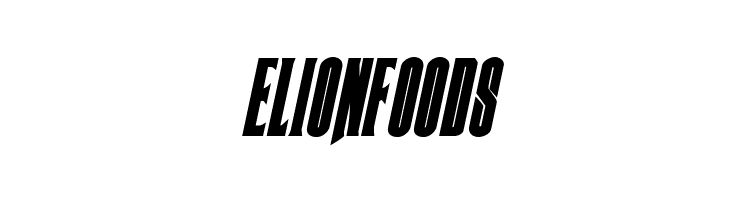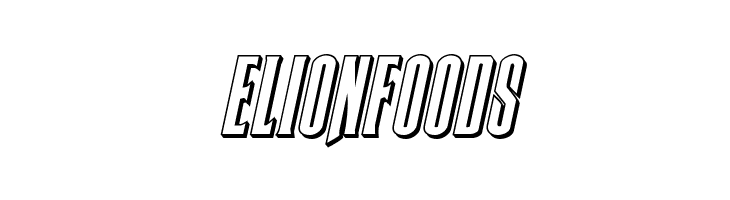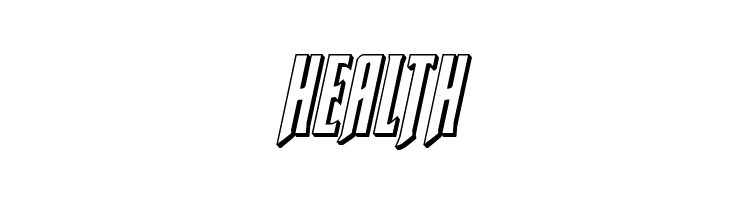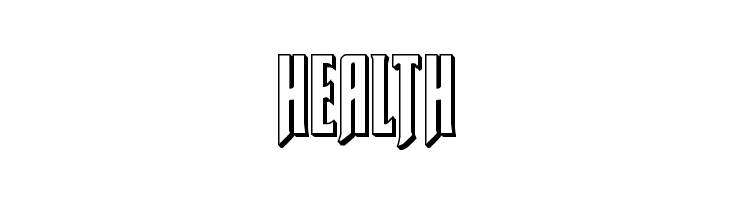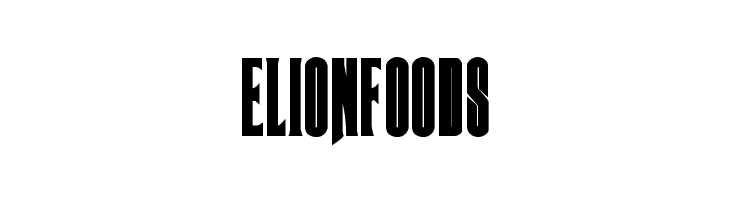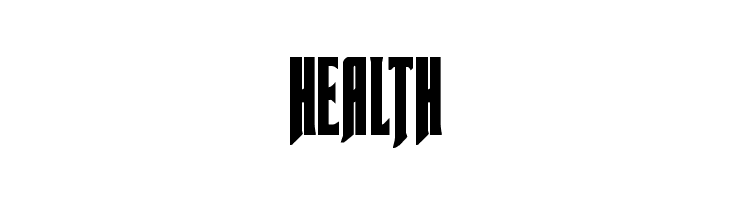
( Fonts by Nick Curtis - www.nicksfonts.com ) A bold, geometric font with a 3D effect and industrial style. Download 2748 Downloads@WebFont
( Fonts by Jacob Fisher - www.pizzadude.dk ) A bold, blocky font with high contrast and a modern, impactful style. Download 18591 Downloads@WebFont
( These fonts are free to use in any private, recreational manner.For commercial go to www.flopdesign.com/fordesign/font.html ) A playful, rounded font with a bold, whimsical style. Download 374 Downloads@WebFont
( Fonts by Nick Curtis - Personal-use only. For commercial use please contact owner. ) A bold, geometric font with a playful, stencil-like style. Download 57 Downloads@WebFont
( Fonts by Nick Curtis - Personal-use only. For commercial use please contact owner. ) A bold, playful font with a 3D effect and geometric style. Download 55 Downloads@WebFont
( Fonts by Nick Curtis - www.nicksfonts.com ) A bold, playful font with a 3D shadow effect and geometric style. Download 684 Downloads@WebFont
( Fonts by Khurasan ) A bold, playful font with rounded edges and a hand-drawn look. Download 95 Downloads@WebFont
( Fonts by Mocha Frappuccino - Personal-use only. For commercial use please contact owner. ) A bold, dynamic script font with sweeping curves and dramatic slants. Download 449 Downloads@WebFont
( Fonts by Nick Curtis - www.nicksfonts.com ) A bold, geometric font with a playful, retro vibe. Download 735 Downloads@WebFont
( Fonts by Manfred Klein. Free for private and charity use. Free for commercial with donation to organizations ) A refined serif font with elegant curves and a modern touch. Download 543 Downloads@WebFont
( Fonts by Manfred Klein. Free for private and charity use. Free for commercial with donation to organizations ) An elegant oblique serif font with a dynamic and sophisticated style. Download 164 Downloads@WebFont
( Fonts by Jacob Fisher - www.pizzadude.dk ) A bold, decorative font with a playful, hand-drawn style and rugged outlines. Download 1933 Downloads@WebFont
( Fonts by Manfred Klein. Free for private and charity use. Free for commercial with donation to organizations ) A whimsical, illustrative font with cartoon-like characters and scenes. Download 171 Downloads@WebFont
( Fonts by Daniel Zadorozny - www.iconian.com - Free for personal use ) A bold, calligraphic font with sharp, angular strokes and dynamic movement. Download 1427 Downloads@WebFont
( Fonts by Daniel Zadorozny - www.iconian.com - Free for personal use ) A bold, brush-like font with dynamic, calligraphic strokes. Download 854 Downloads@WebFont
( Fonts by Daniel Zadorozny - www.iconian.com - Free for personal use ) A bold, italicized font with a dynamic, brush-like style. Download 395 Downloads@WebFont
( Fonts by Daniel Zadorozny - www.iconian.com - Free for personal use ) A bold, left-leaning italic font with a brush-like, artistic style. Download 285 Downloads@WebFont
( Fonts by Daniel Zadorozny - www.iconian.com - Free for personal use ) A bold, italicized font with calligraphic influences and dynamic strokes. Download 379 Downloads@WebFont
( Fonts by Daniel Zadorozny - www.iconian.com - Free for personal use ) A bold, calligraphic font with dynamic, fluid strokes and sharp angles. Download 205 Downloads@WebFont
( Fonts by Daniel Zadorozny - www.iconian.com - Free for personal use ) A bold, brush-style font with a shadow effect, combining traditional calligraphy with modern flair. Download 508 Downloads@WebFont
( Fonts by Daniel Zadorozny - www.iconian.com - Free for personal use ) A bold, italicized font with a shadow effect, offering a dynamic and modern style. Download 447 Downloads@WebFont
( Fonts by Manfred Klein. Free for private and charity use. Free for commercial with donation to organizations ) Vintage-style illustrated business people icons for display use. Download 176 Downloads@WebFont
( Fonts by Alan Carr ) A bold, geometric font with a modern, artistic style. Download 33721 Downloads@WebFont
( Fonts by Manfred Klein. Free for private and charity use. Free for commercial with donation to organizations ) Illustrative display font featuring business people in office scenes. Download 91 Downloads@WebFont
( Fonts by Manfred Klein. Free for private and charity use. Free for commercial with donation to organizations ) Business-themed pictogram font with office and teamwork silhouettes. Download 127 Downloads@WebFont
( Fonts by Daniel Zadorozny - www.iconian.com - Free for personal use ) A bold, italicized 3D font with sharp angles and a dynamic style. Download 156 Downloads@WebFont
( Fonts by Daniel Zadorozny - www.iconian.com - Free for personal use ) A bold, 3D font with sharp edges and a striking shadow effect. Download 125 Downloads@WebFont
( Fonts by Daniel Zadorozny - www.iconian.com - Free for personal use ) A bold, dramatic font with tall, narrow characters and sharp angles. Download 254 Downloads@WebFont
( Fonts by Daniel Zadorozny - www.iconian.com - Free for personal use ) A bold, italicized font with a dynamic slant and high contrast, perfect for impactful headlines. Download 142 Downloads@WebFont